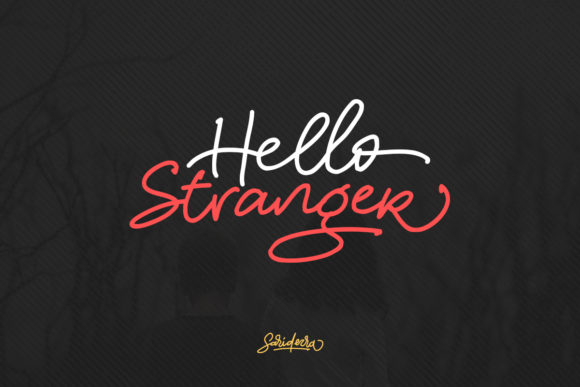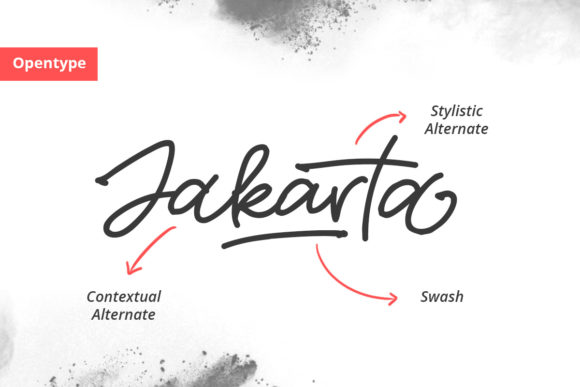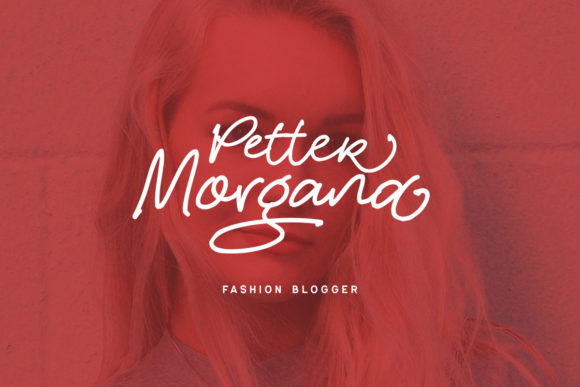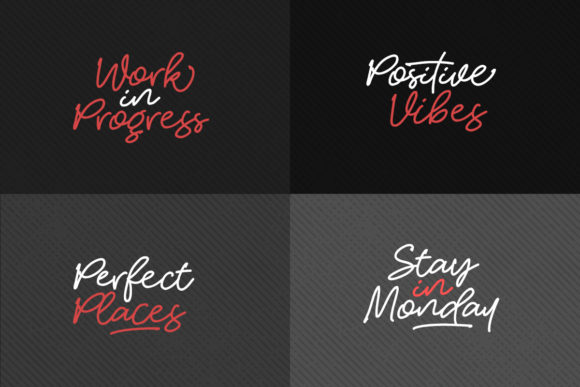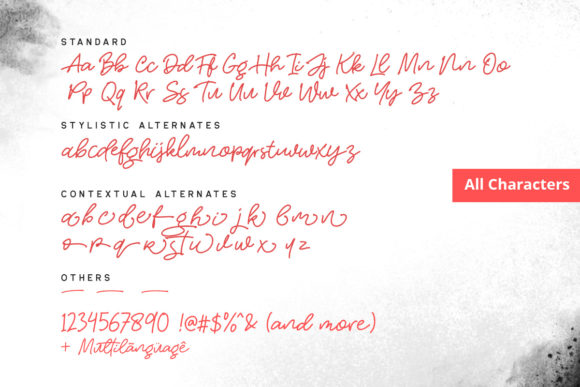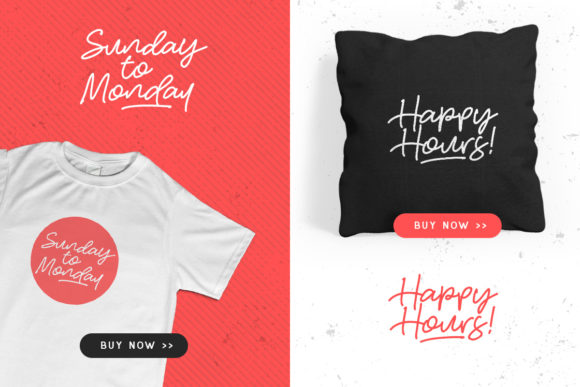
Hello Stranger Font
About Hello Stranger Font
The Hello Stranger is a striking handwritten font. Its letters have a good readability and are easy to use. Therefor it’s the perfect font to create your own customized handwriting designs.